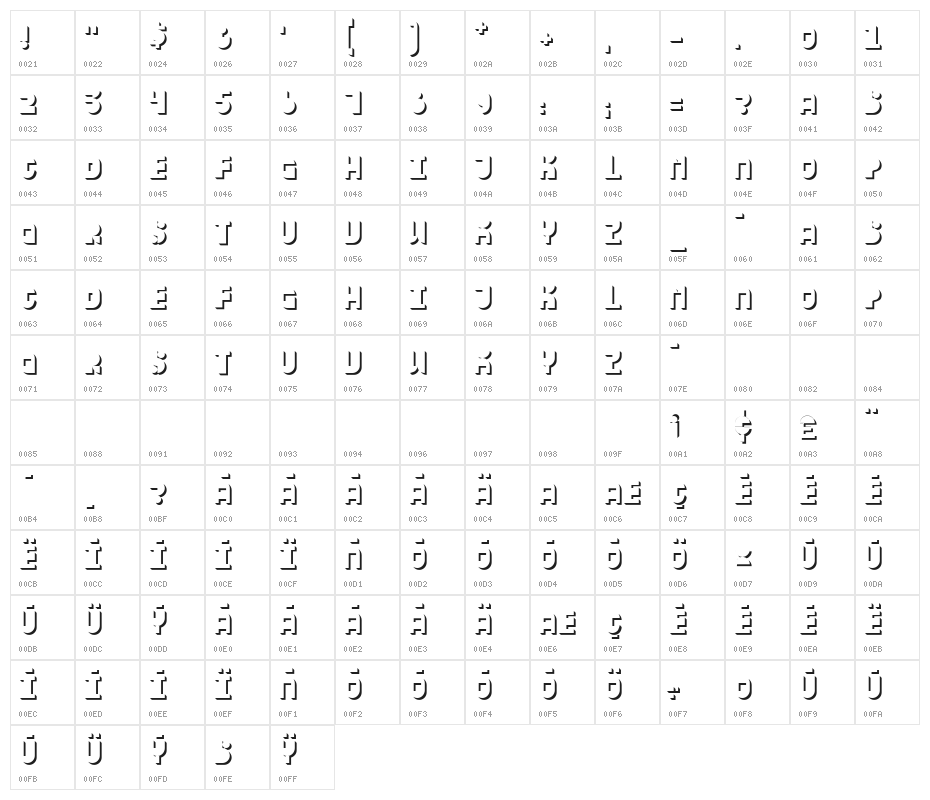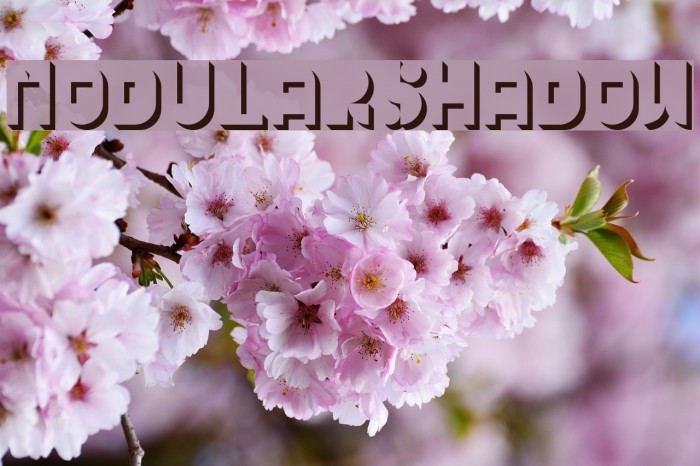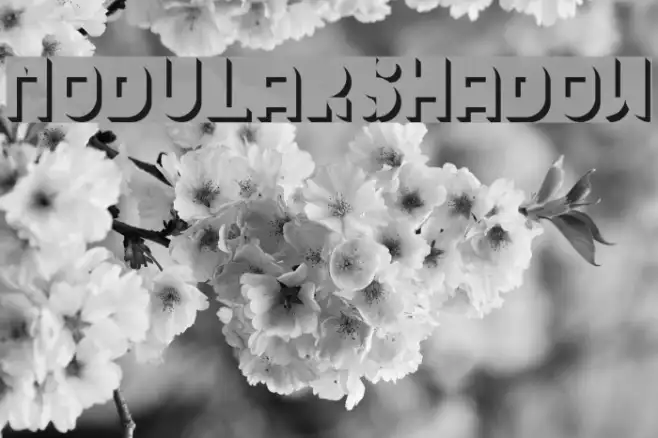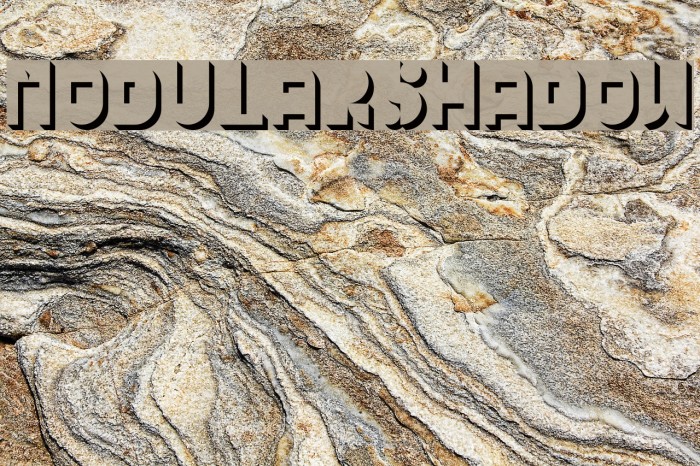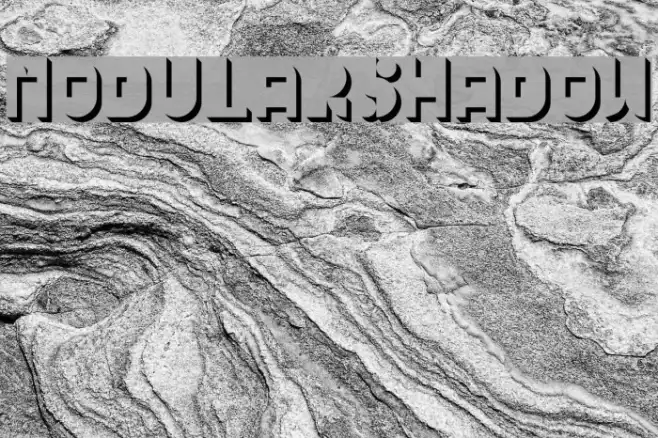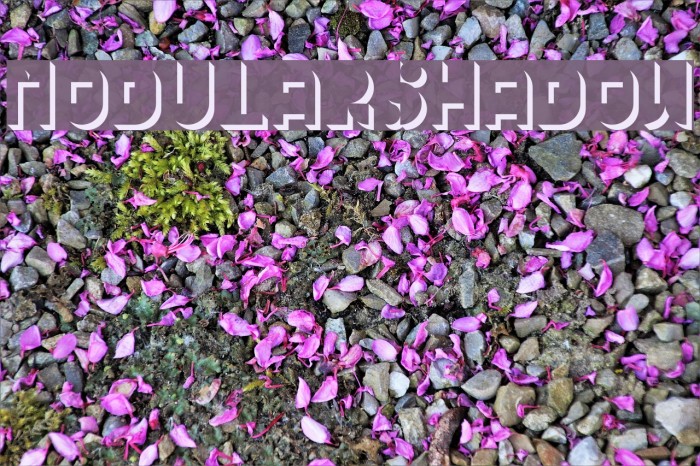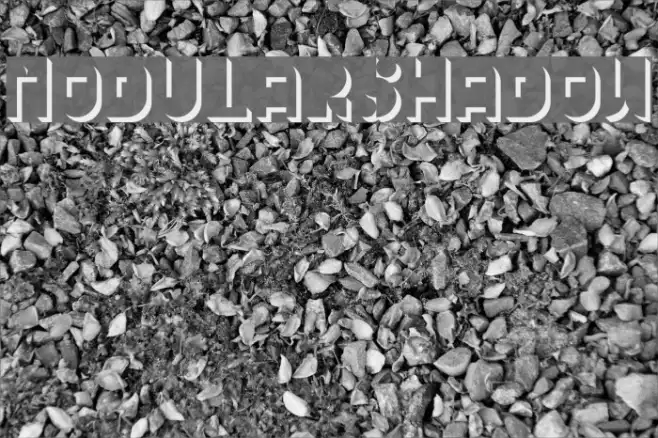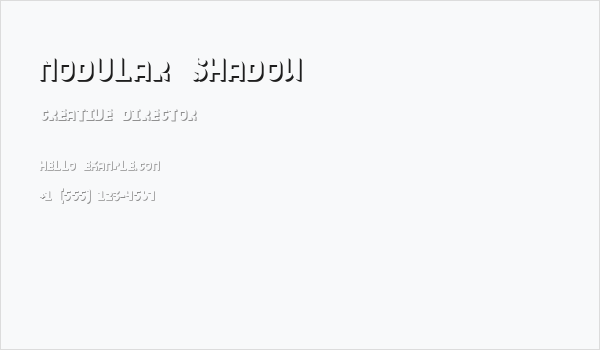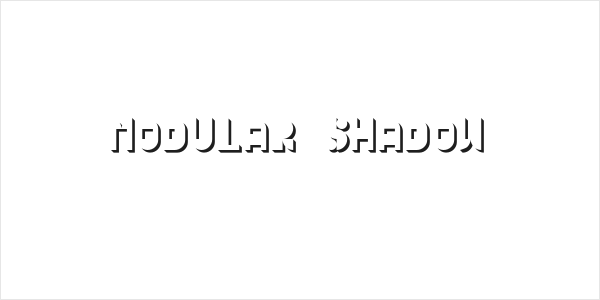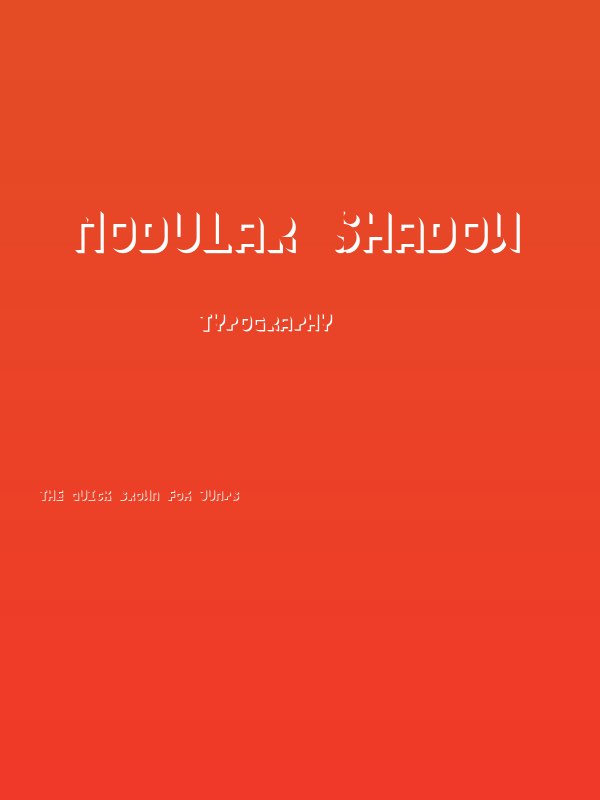
Modular Shadow Font
Modular Shadow Description
This font features a bold, geometric design with a distinct shadow effect that gives it a three-dimensional appearance. The characters are constructed using straight lines and sharp angles, creating a modular and futuristic look. The shadow effect is consistent across all characters, adding depth and a sense of movement. The uppercase and lowercase letters maintain a uniform style, while the numbers and special characters are designed to match the overall aesthetic. This font is ideal for projects that require a modern and eye-catching typeface.
| Proposed Projects | Ideal for posters, logos, video game titles, and futuristic design projects. |